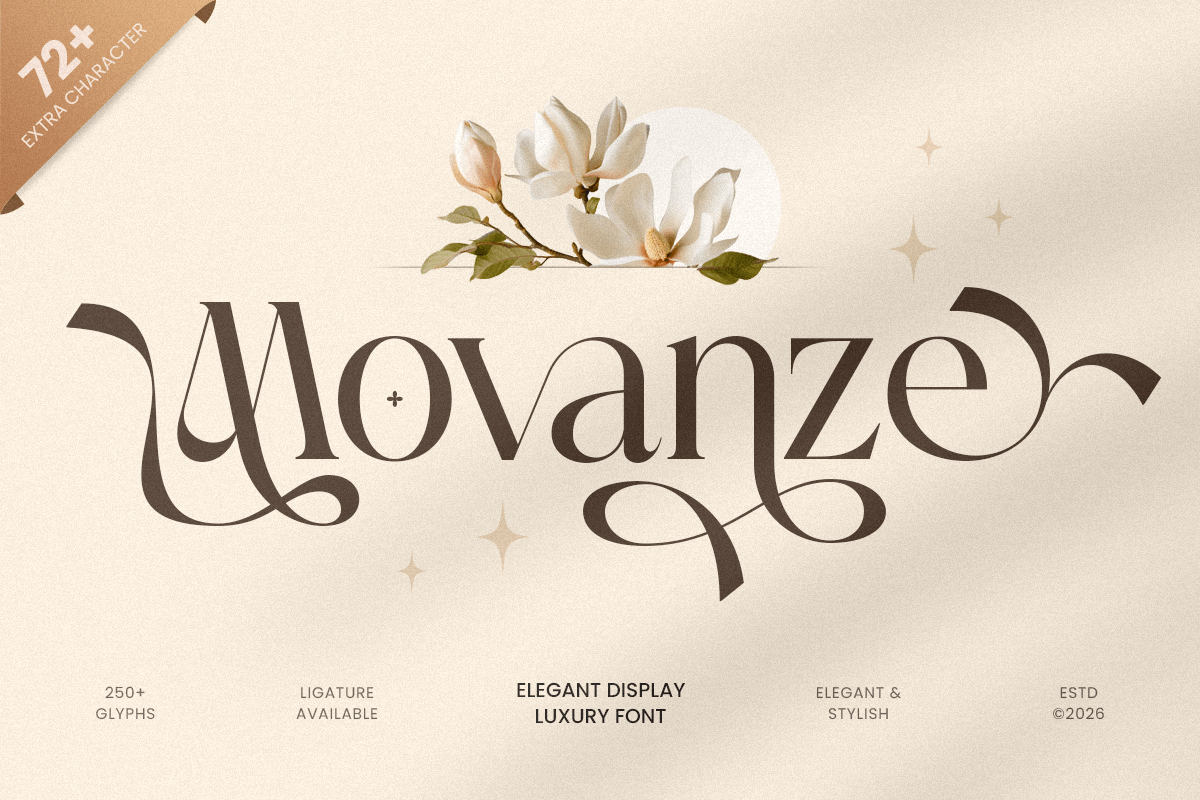
Movanze
-Elegant Display Premium FontMovanze - Elegant Display Premium Font
Movanze is an elegant display luxury font designed to deliver refined sophistication with a bold premium presence. Featuring polished letterforms, graceful proportions, and a stylish display rhythm, this typeface creates a high-end visual tone that feels exclusive, modern, and instantly memorable.
Built for statement typography, Movanze works beautifully across logos, wordmarks, editorial headlines, magazine covers, website headers, packaging, labels, invitations, signage, presentations, and upscale marketing visuals. Its elegant display structure gives every layout strong visual impact while maintaining clarity and refinement across both digital and print design.
Whether you’re building a fashion identity, creating beauty branding, designing premium packaging, or crafting luxurious promotional materials, Movanze provides a sophisticated display foundation that makes your typography feel polished, glamorous, and unforgettable.
Inspiration Behind Movanze
Movanze is inspired by contemporary luxury branding and elegant editorial typography—where bold display presence, graceful balance, and premium detail define high-end communication. The design focuses on refined visual rhythm and stylish sophistication to support upscale identities with a timeless luxury character.
Movanze Font Features:
Elegant display letterforms with refined luxury character
Perfect for premium branding, logos, and headline typography
Strong visual impact for editorials, packaging, and upscale layouts
Clean structure for stylish compositions and high readability
Luxury logos, wordmarks, and premium brand identity systems
Editorial layouts, magazine covers, and elegant headline typography
Fashion, beauty, skincare, fragrance, and boutique branding
Packaging, labels, invitations, and upscale promotional design
Social media campaigns, websites, presentations, and marketing assets